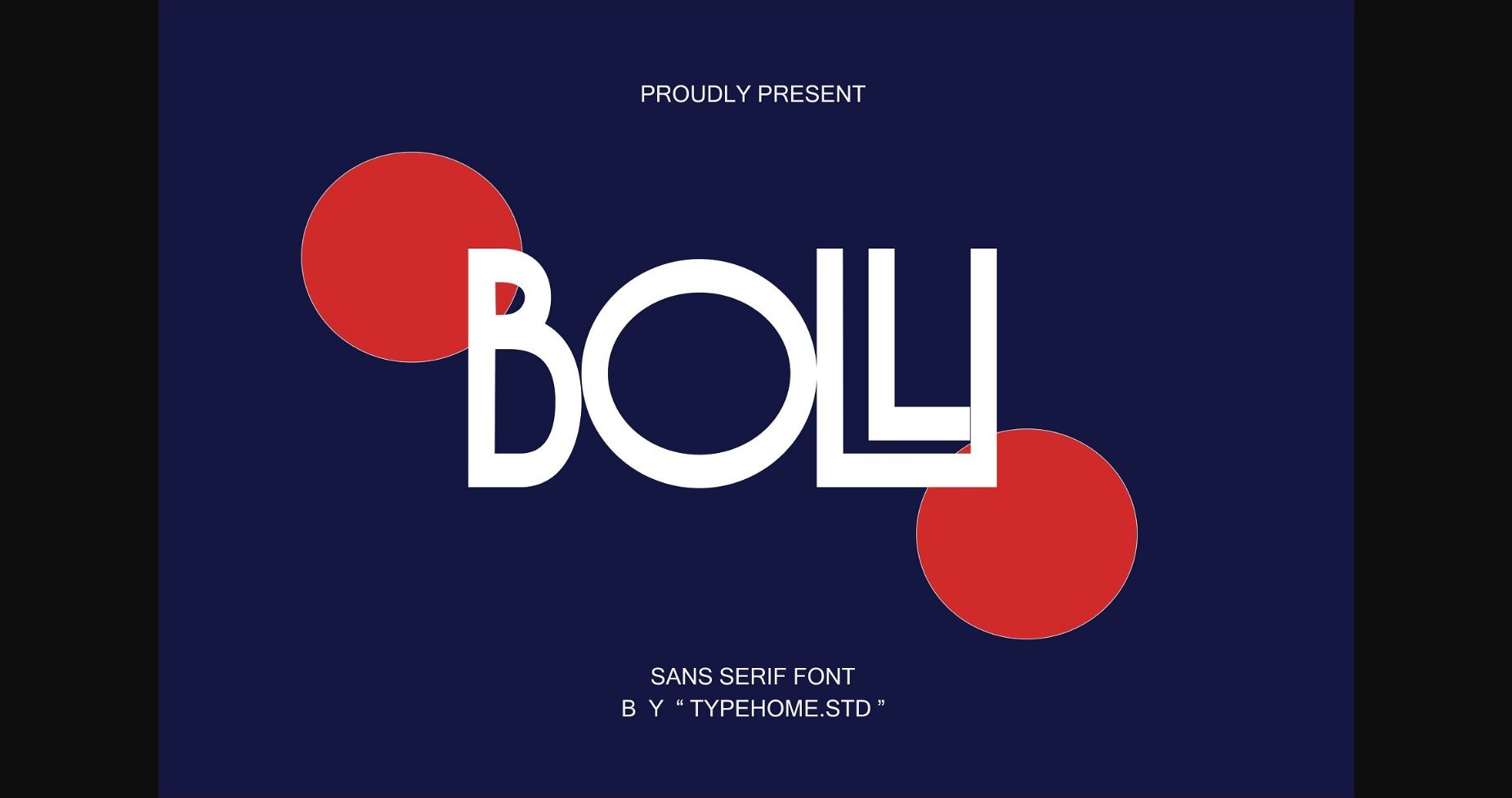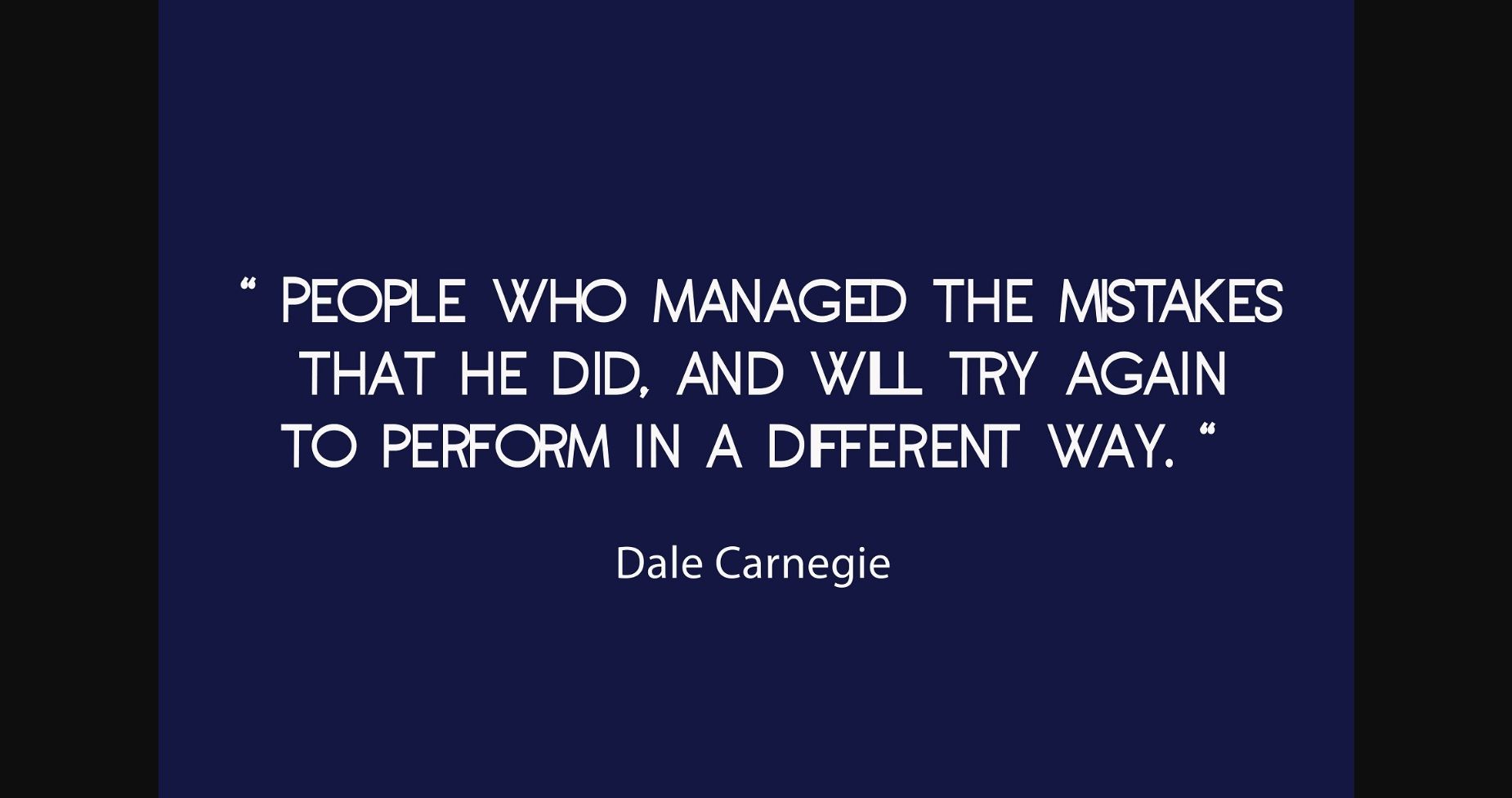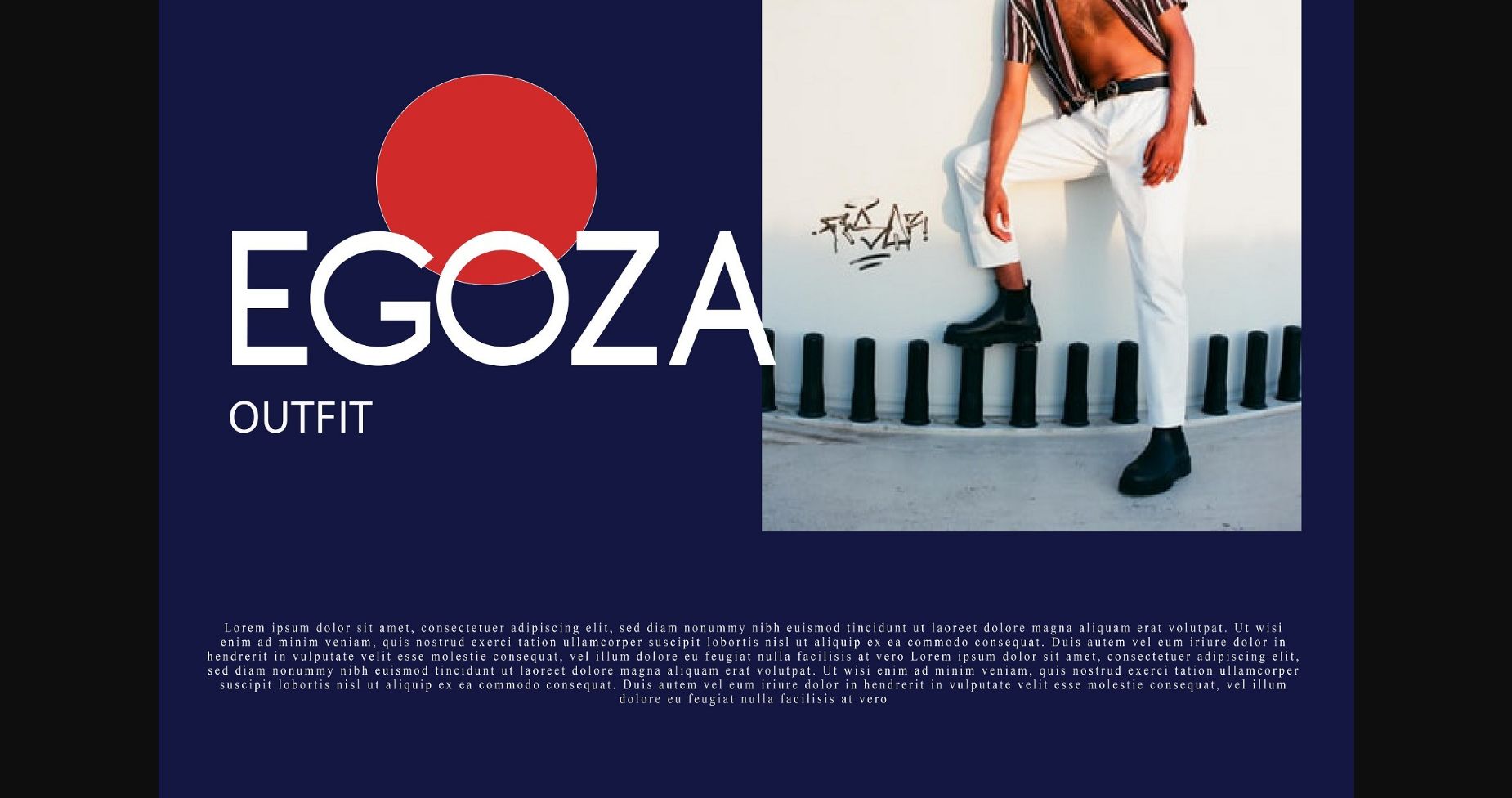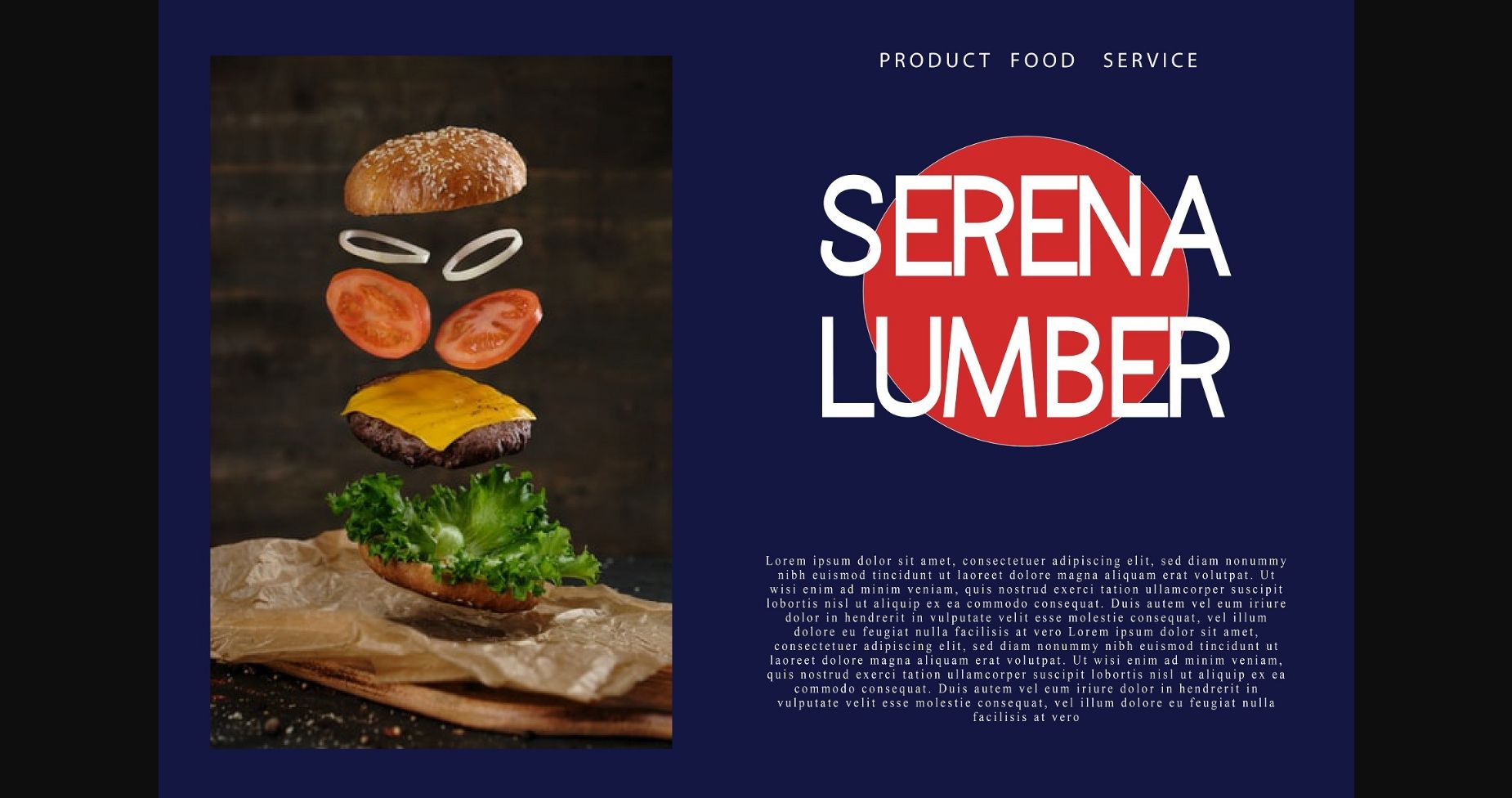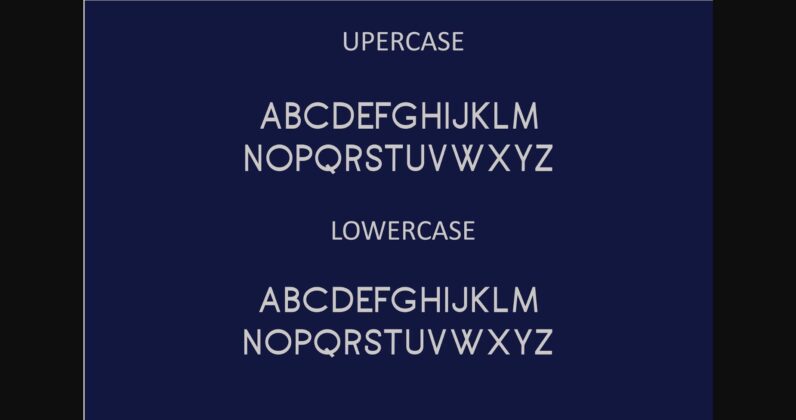
Bolli Font
About Bolli Font
Bolli is a bold and simple lettered sans serif font. No matter the topic, this font will be an incredible asset to your fonts’ library, as it has the potential to elevate any creation.